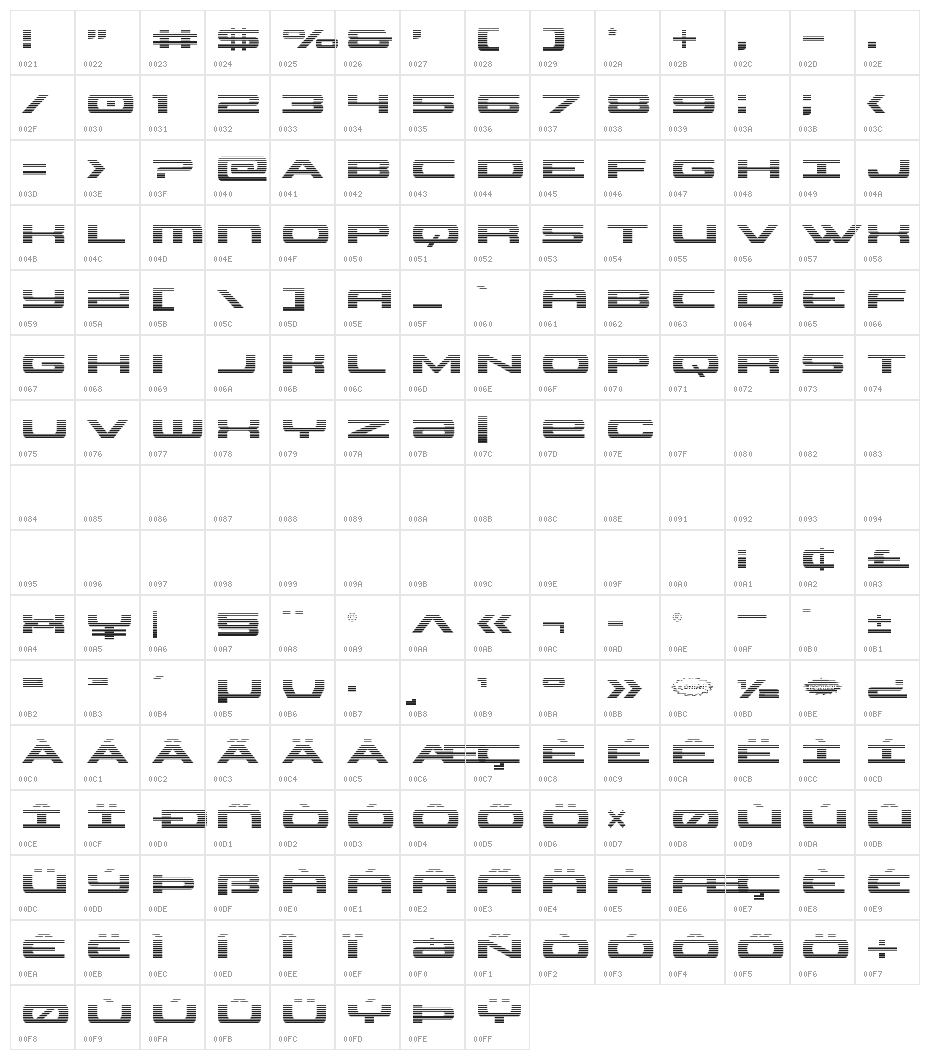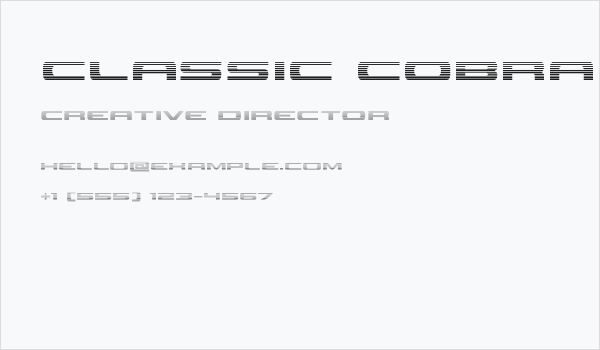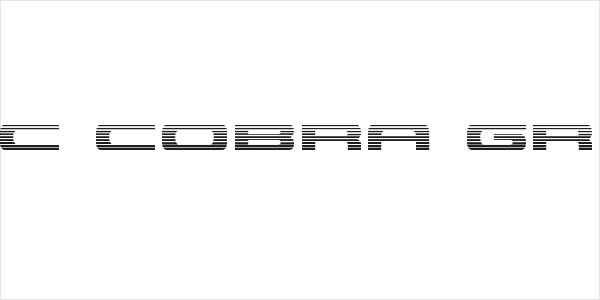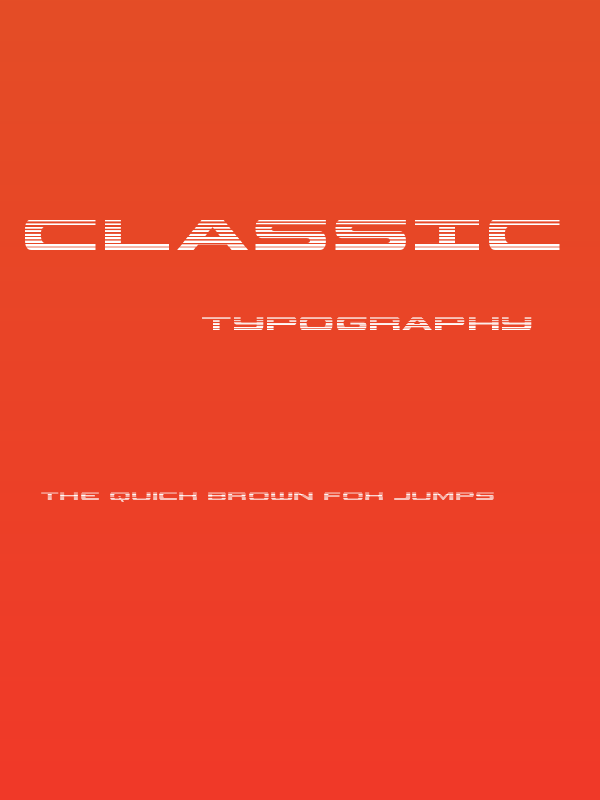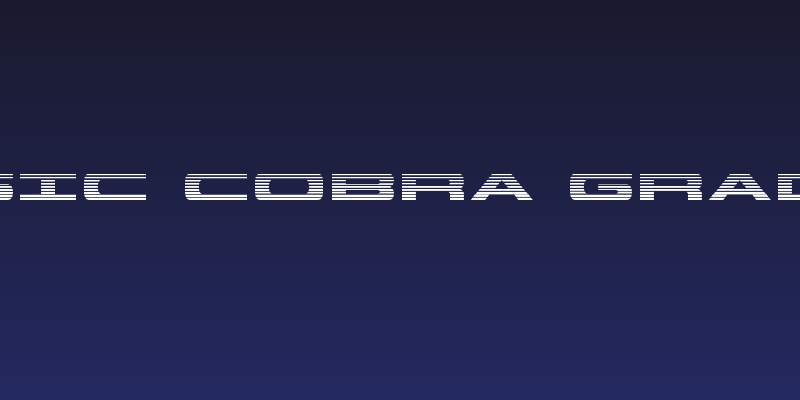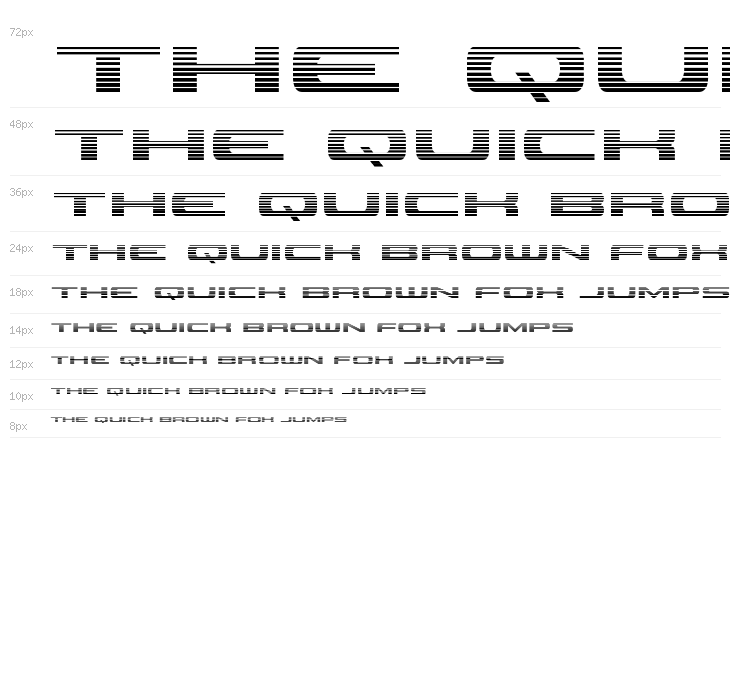
Classic Cobra Gradient Font
Classic Cobra Gradient Description
This font features a unique, futuristic design with a gradient effect that creates a sense of motion and depth. The characters are composed of horizontal lines that vary in thickness, giving them a dynamic and modern appearance. The uppercase and lowercase letters maintain a consistent style, with sharp angles and geometric shapes. The numerals and special characters follow the same design principles, ensuring a cohesive look across all elements. This font is ideal for projects that require a bold and eye-catching aesthetic, such as technology branding, sci-fi themes, or modern advertising.